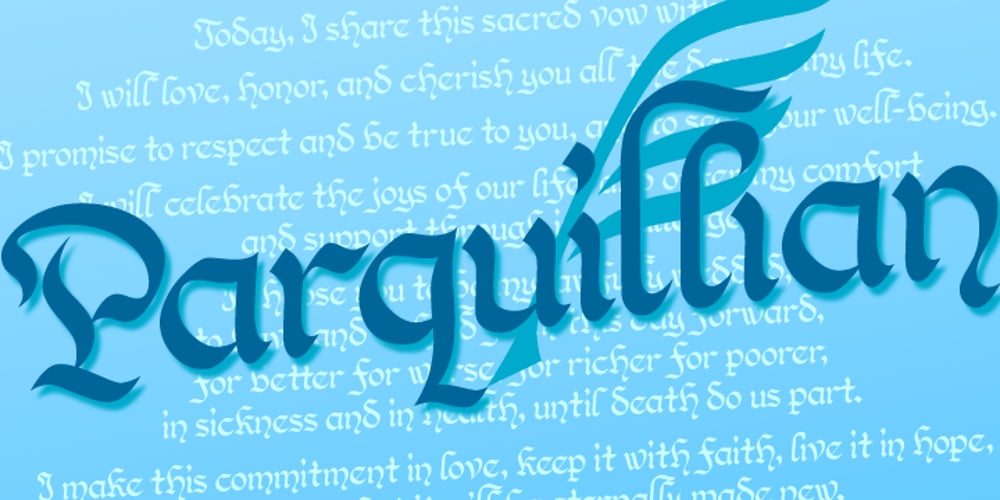
Parquillian Font Family was designed by Martin L. Parker and published by Parquillian Design. Parquillian contains 3 styles and family package options. Parquillian is a calligraphic display face with good legibility. It is based on a hand using elements of Italic, Gothic and Fraktur, developed for creating wedding certificates. It has numerous ligatures and alternates with subtle yet elegant swashes.